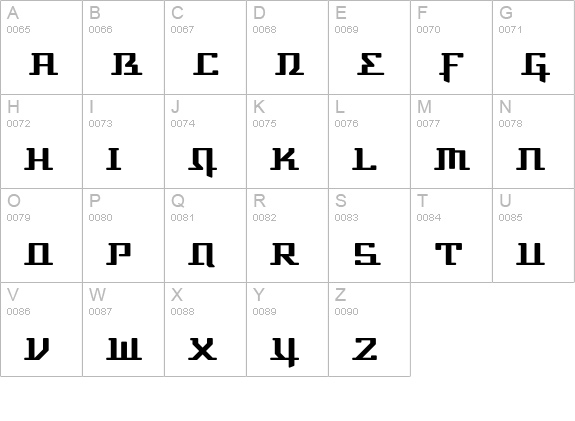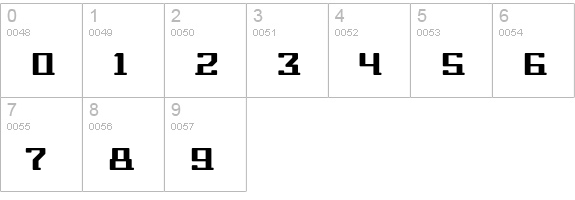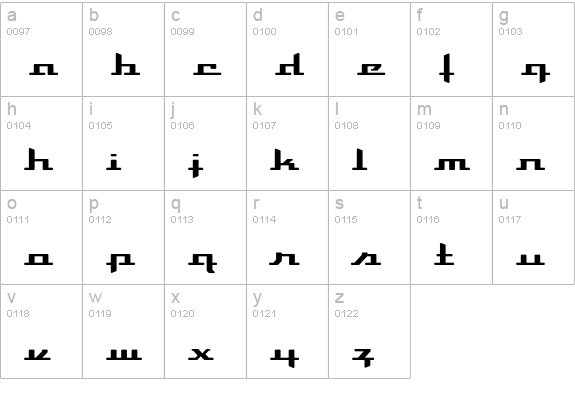
DevilleThruster-DeluxeOne Font Details
DevilleThruster-DeluxeOne font is a stunning display typeface that exudes elegance and sophistication. Its intricate details and unique design make it perfect for adding a touch of luxury to any project. With its sleek lines and stylish curves, this font will surely make a statement wherever it is used. The best part? DevilleThruster-DeluxeOne font is available for free download at FontsMarket.com. This means you can easily access this premium font without any cost, making it a great choice for designers looking to elevate their work without breaking the bank. Don't miss out on this opportunity to enhance your projects with the exquisite DevilleThruster-DeluxeOne font - download it for free today!